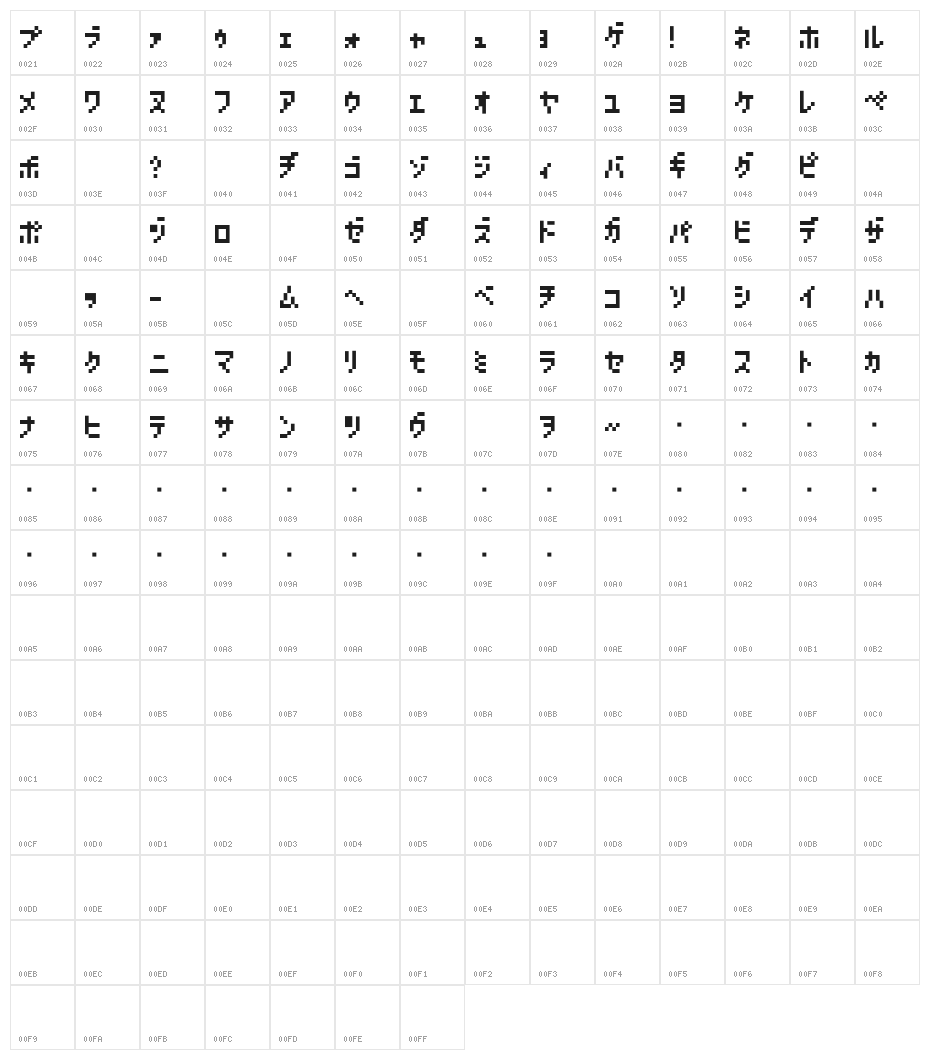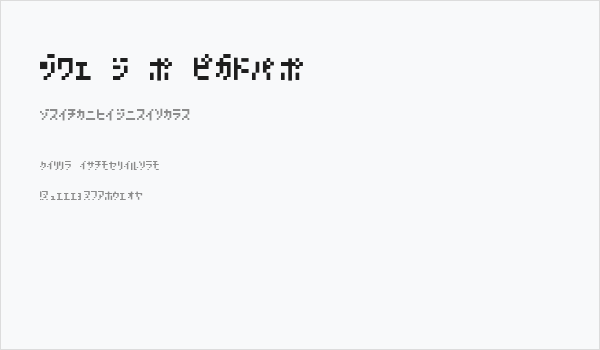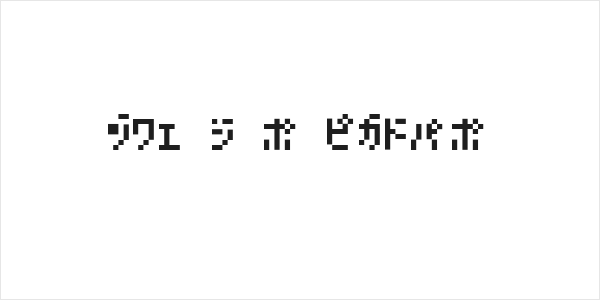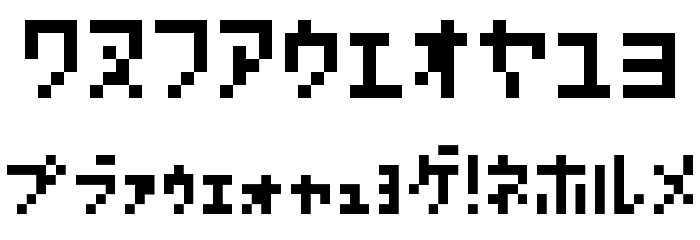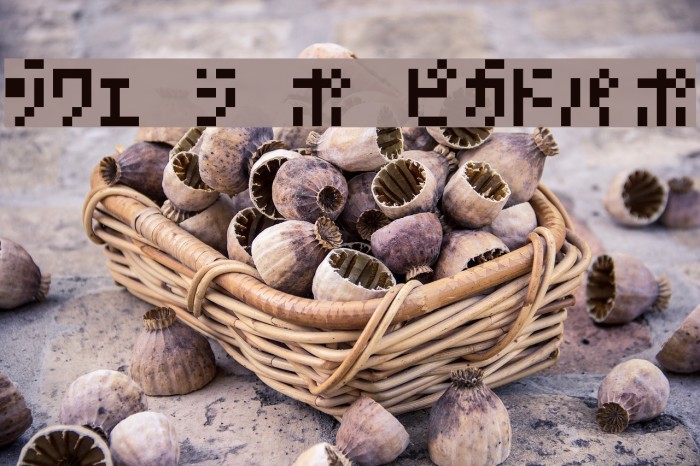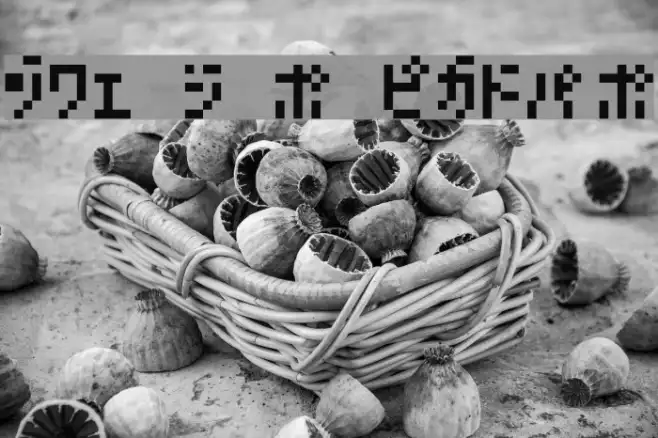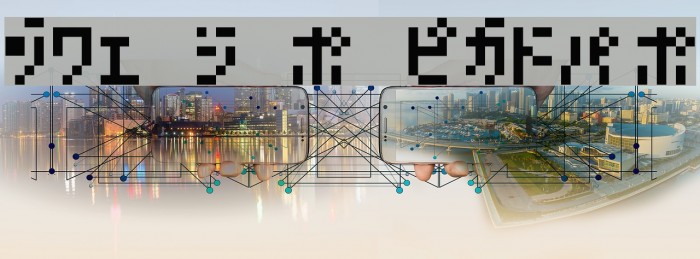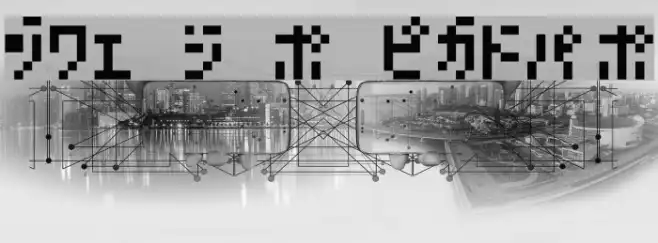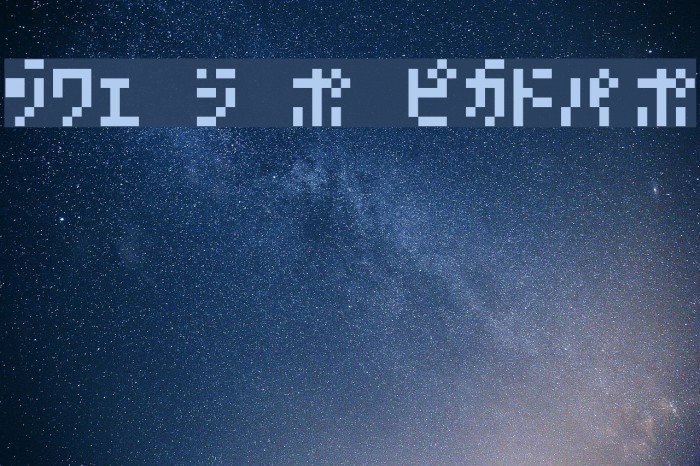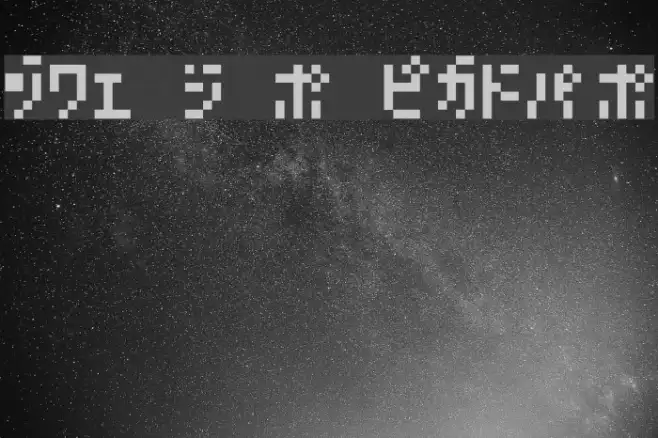
M05_DOKOITSU K Font
M05_DOKOITSU K Description
This font features a bold, pixelated style reminiscent of early digital or video game typography. Each character is composed of square blocks, giving it a distinctly retro and geometric appearance. The uniformity in stroke width across all characters contributes to a cohesive and structured look. The font is highly legible at larger sizes, making it suitable for display purposes where a nostalgic or tech-inspired aesthetic is desired. Its simplicity and blocky nature evoke a sense of straightforwardness and clarity, ideal for projects that aim to capture a vintage digital feel.
| Overall Style | Vintage |
| Proposed Projects | Ideal for video game design, retro-themed posters, digital art, and tech-related branding. |